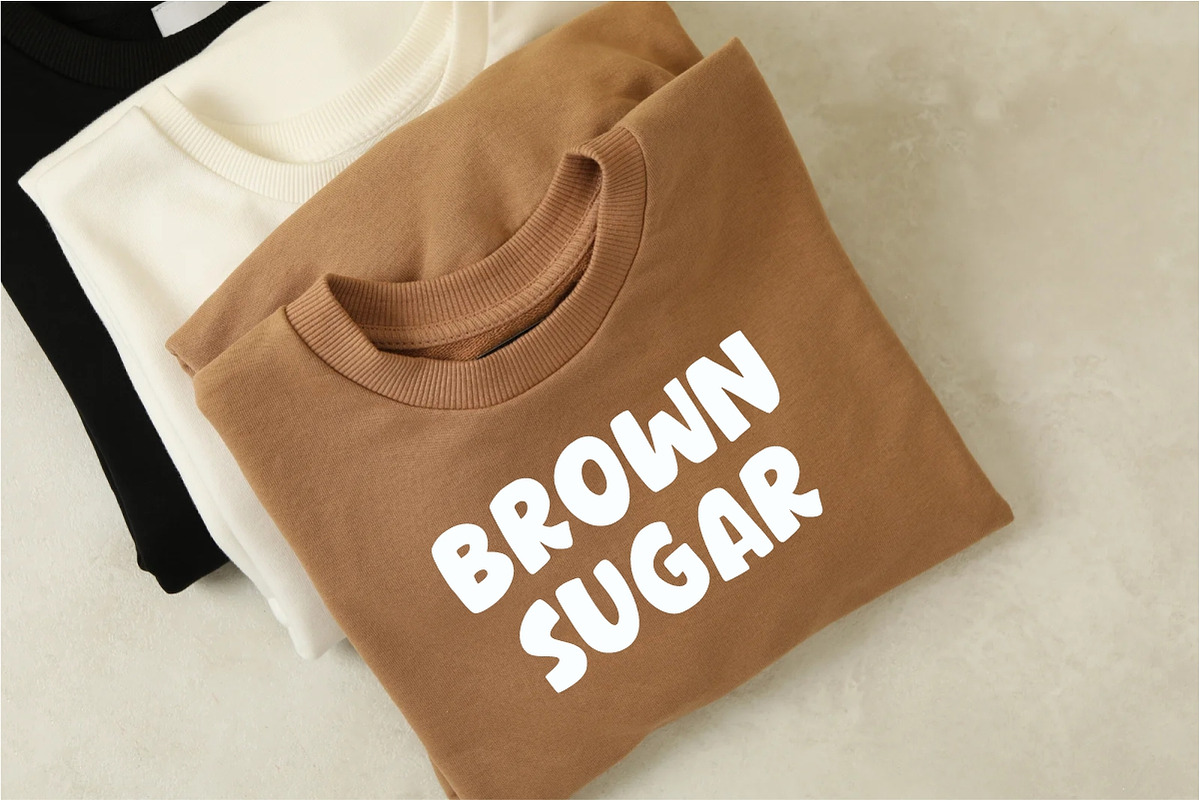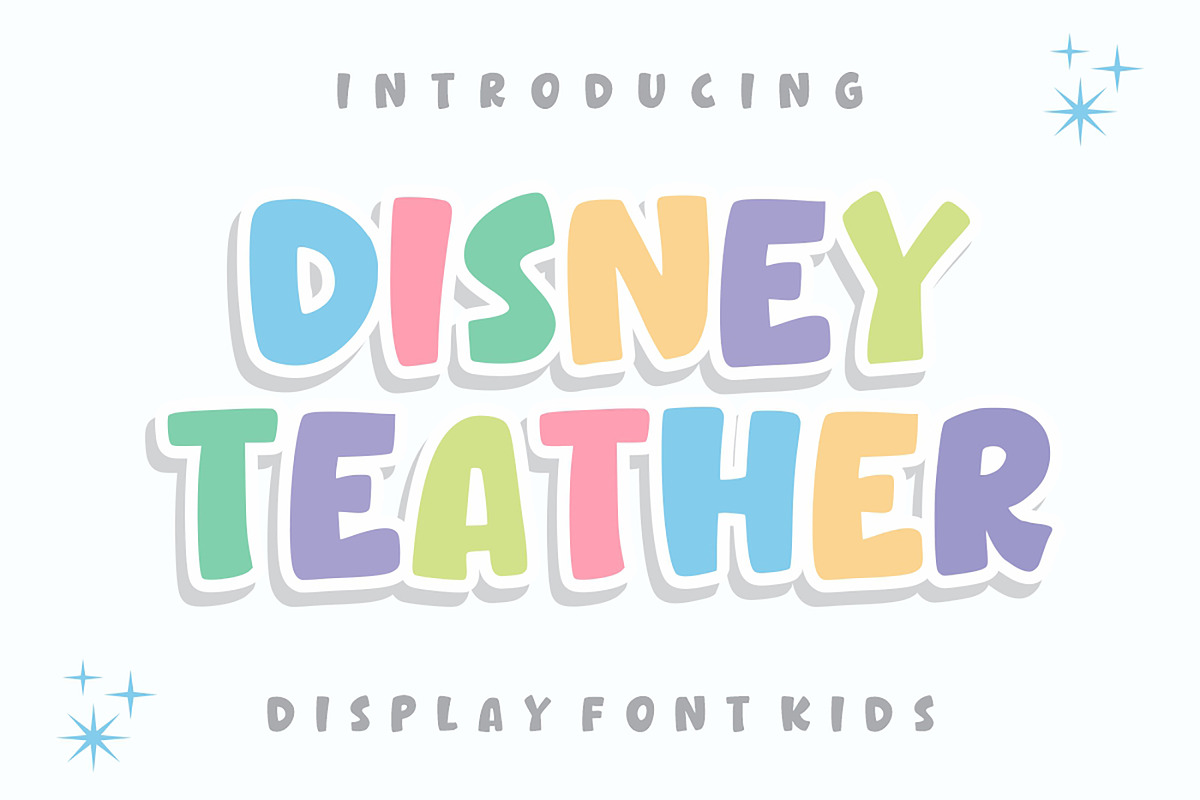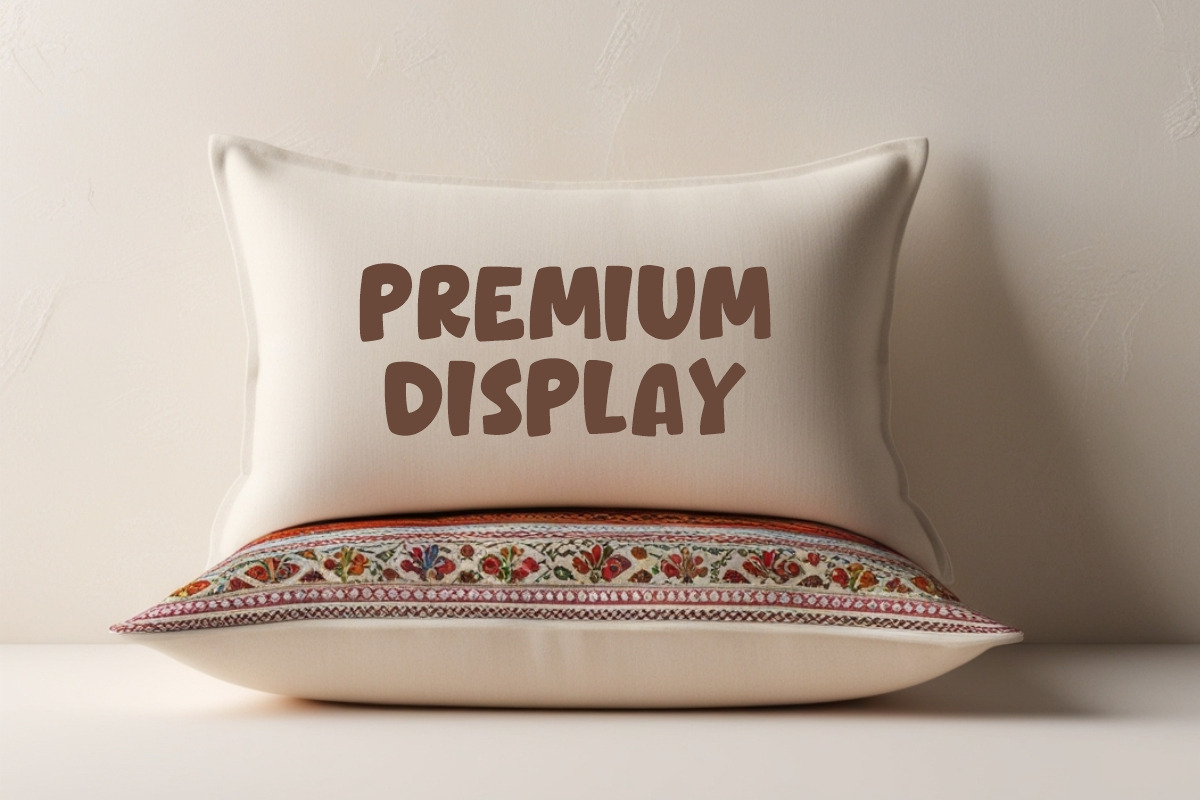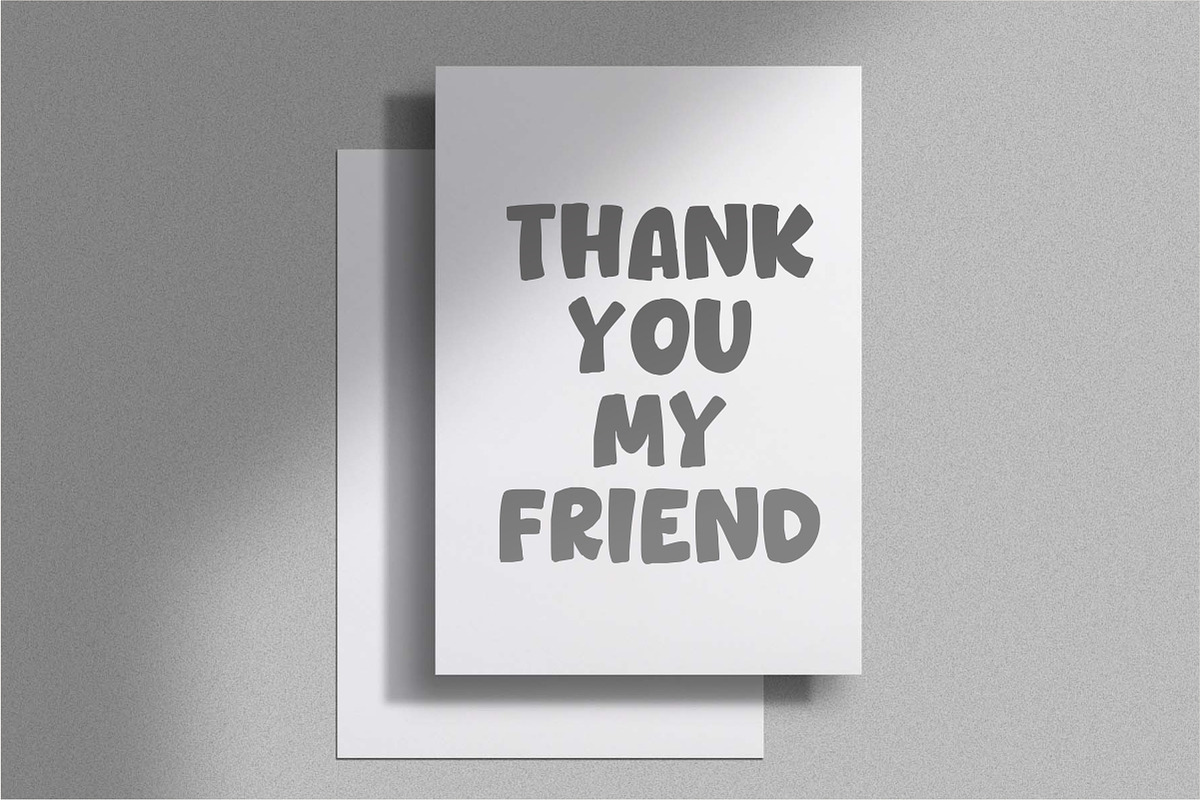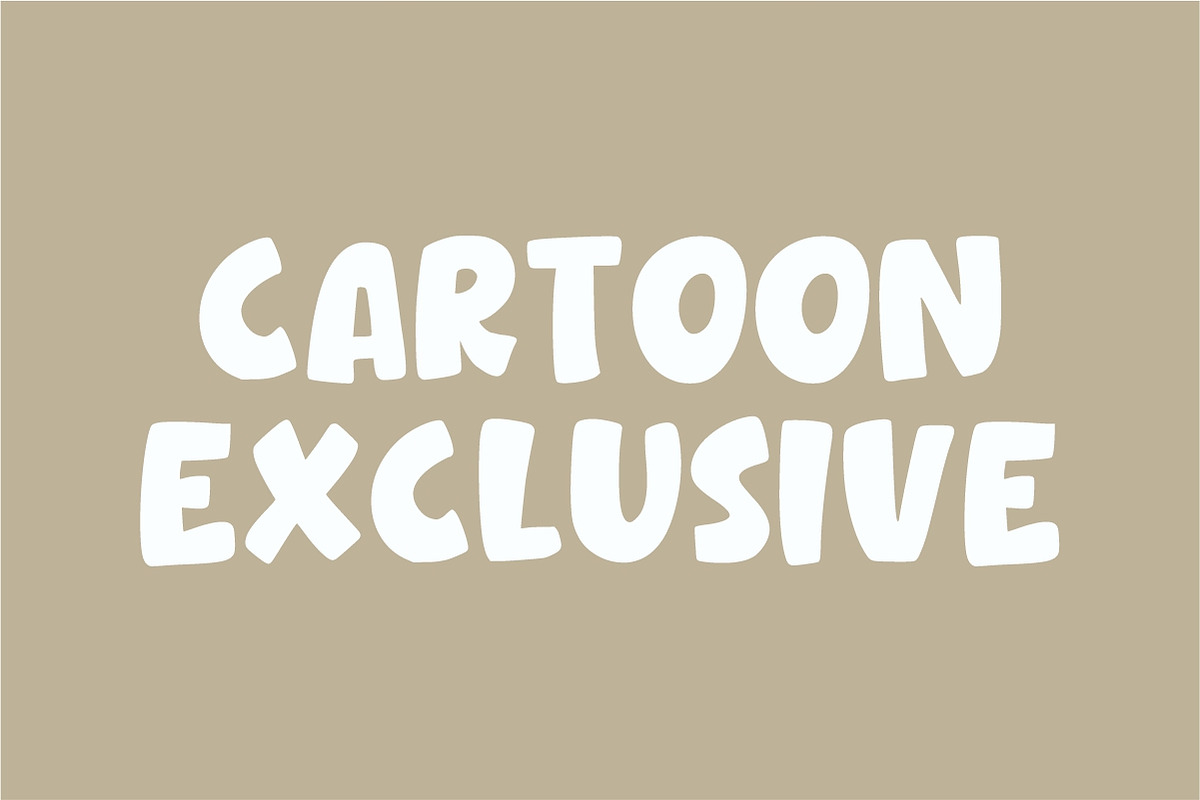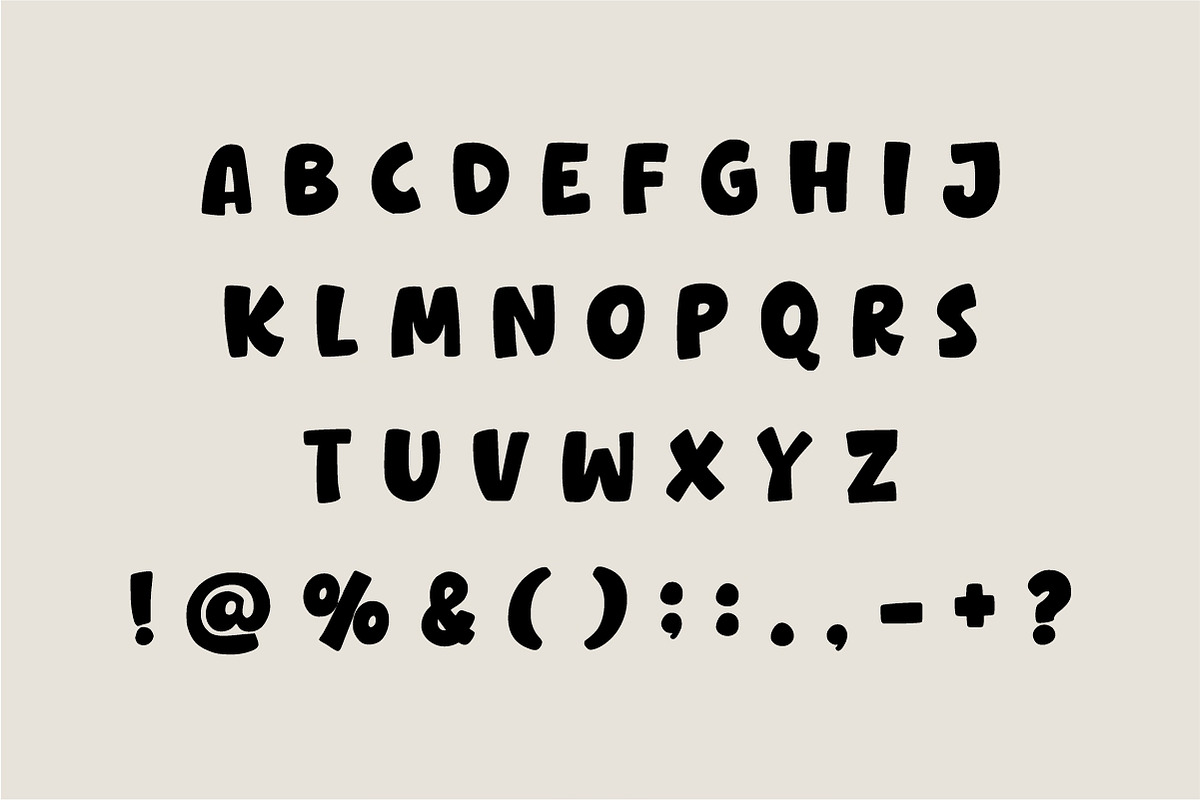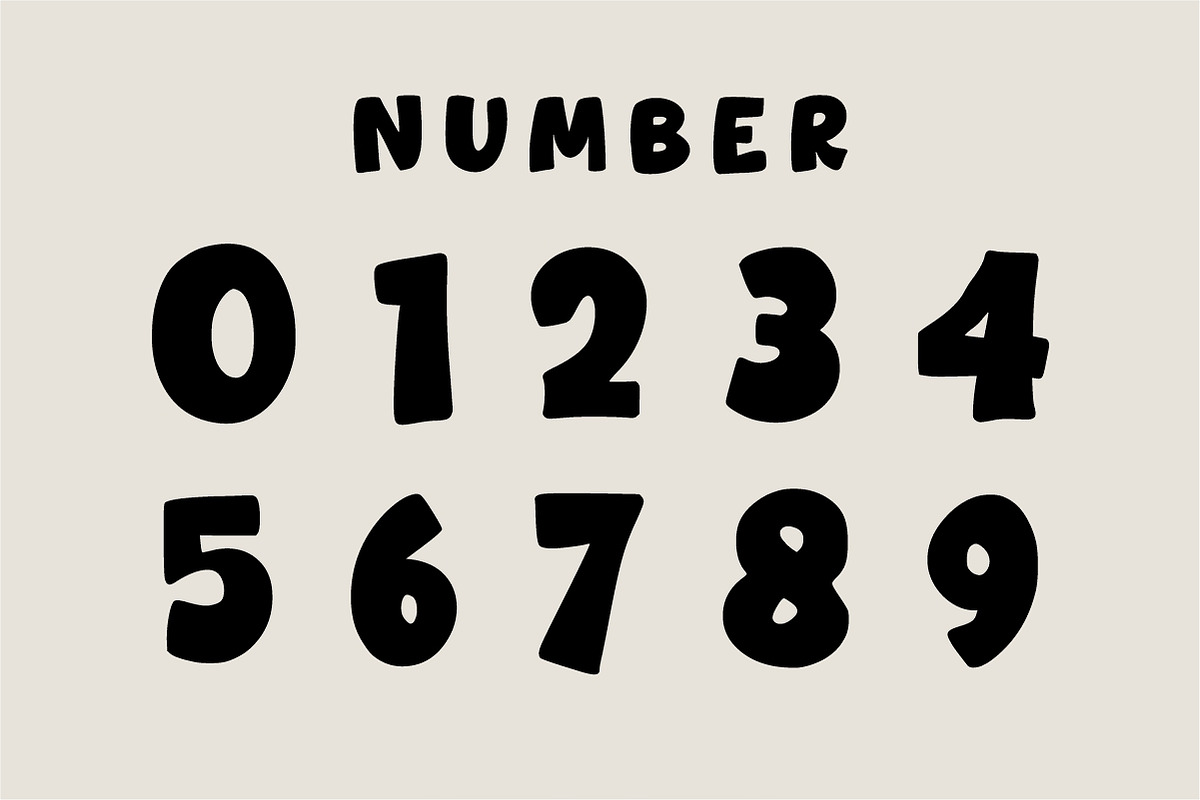
Disney Teather
Disney Teather an authentically enchanting Display Font. It effortlessly exudes a whimsical charm, infusing joy and fun wherever used. This impressive font merrily sits on kids’ t-shirts, adding a playful touch to their apparel. Clean and vibrant is a winning choice for designing cards, magazines, and greeting cards. It breathes life into quotes, elevating brand designs with its unique flair.